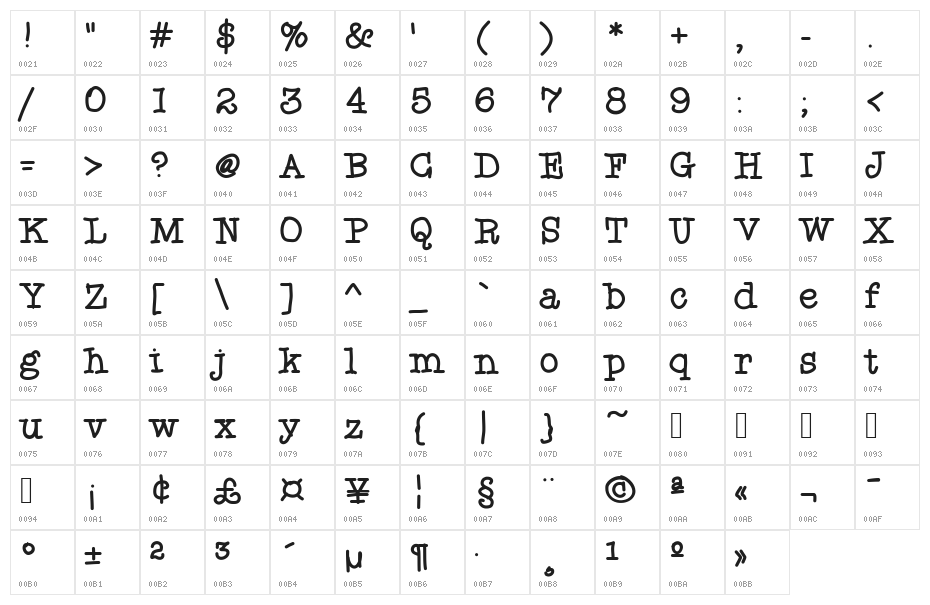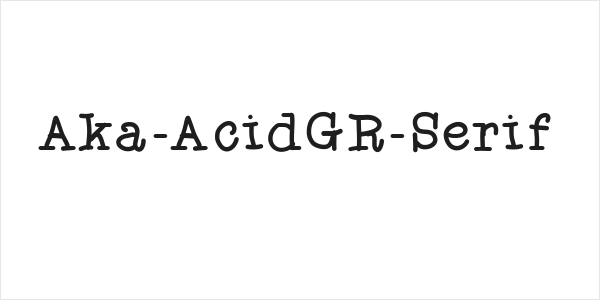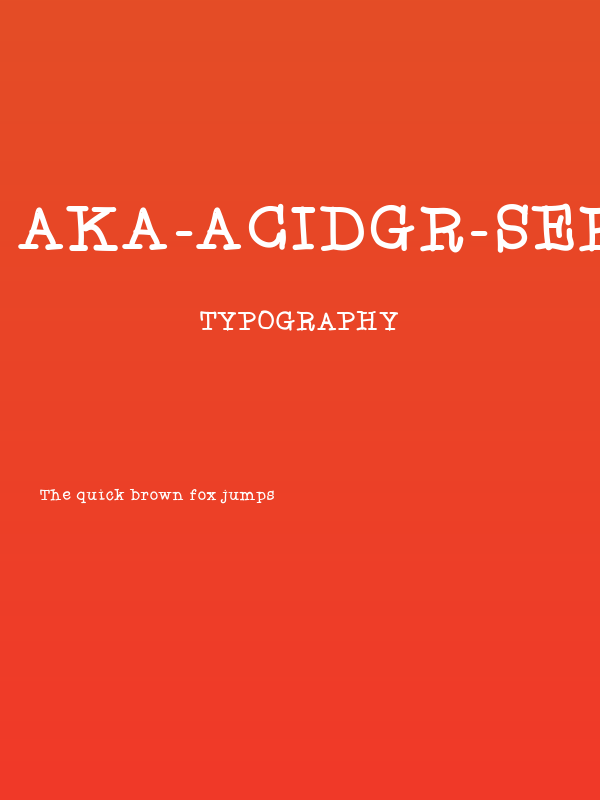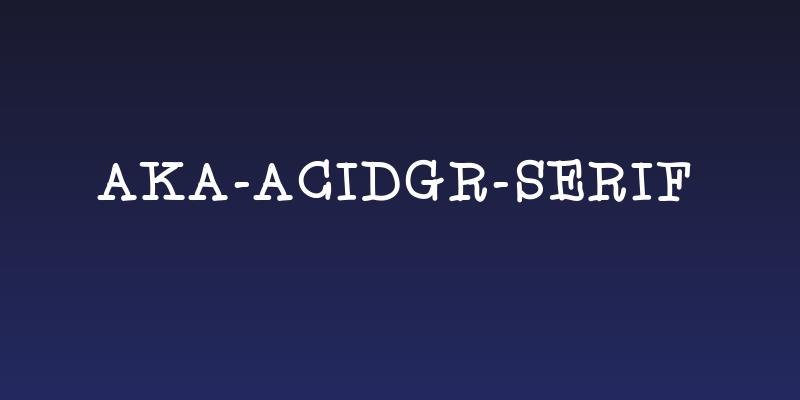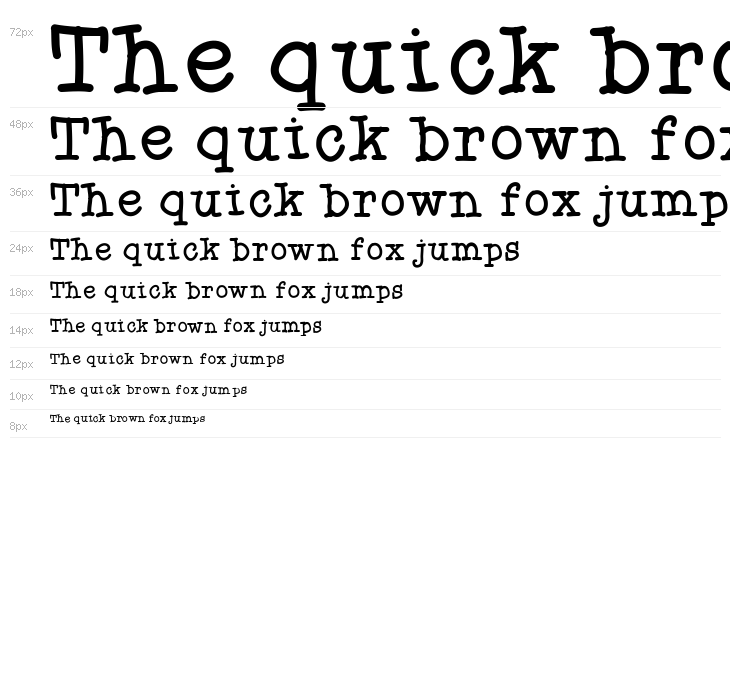
Aka-AcidGR-Serif Font
Aka-AcidGR-Serif Description
This font features a playful and slightly irregular design, characterized by its bold, rounded serifs and uneven stroke widths. The letters have a hand-drawn quality, giving them a whimsical and informal appearance. The uppercase letters are bold and prominent, while the lowercase letters maintain a consistent style with a slightly more condensed form. The numerals are distinct and easy to read, with a similar playful style. Special characters are included, maintaining the overall quirky aesthetic. This font is ideal for projects that require a touch of fun and creativity.
| Proposed Projects | Perfect for children's books, playful branding, creative posters, and informal invitations. |